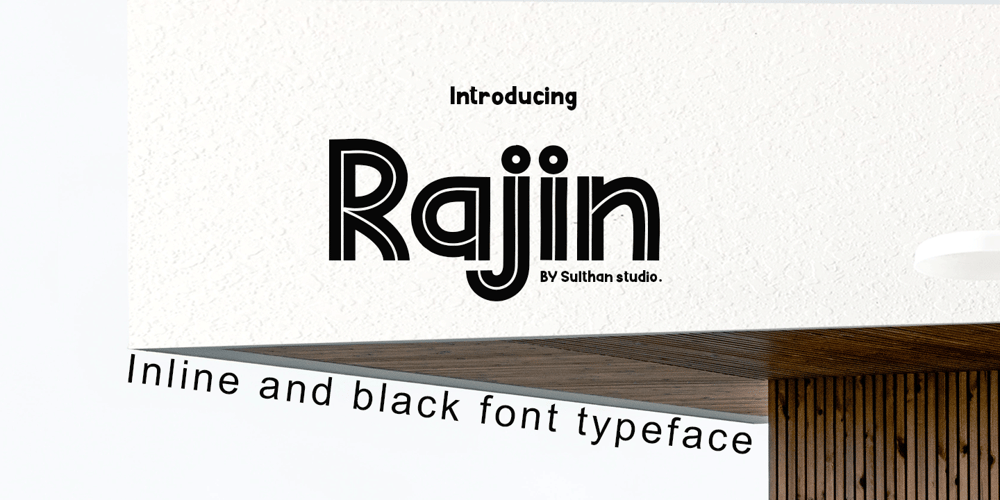
Rajin black
Rajin black font
Rajin black Font Family was designed by Nasrullah and published by Sulthan Studio. Rajin black contains 2 styles and family package options. A cool black font combined with bold letters that have lines inside is very suitable for any logo and also for all titles, both books and crafts and also used on T-shirts.comes with complete upper and lower case letters, numbers, punctuation, and language support